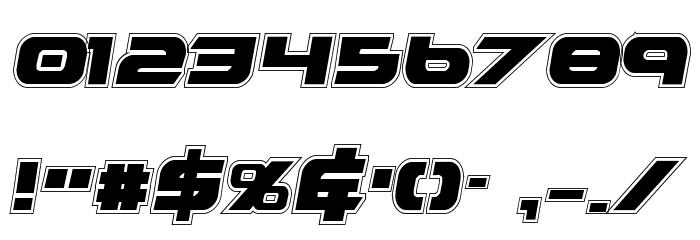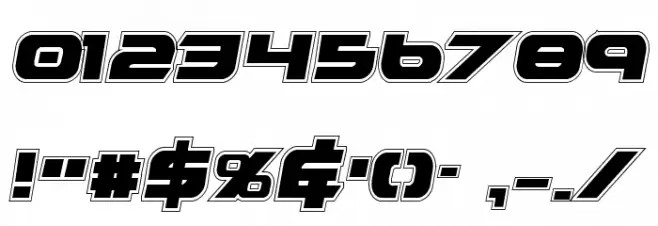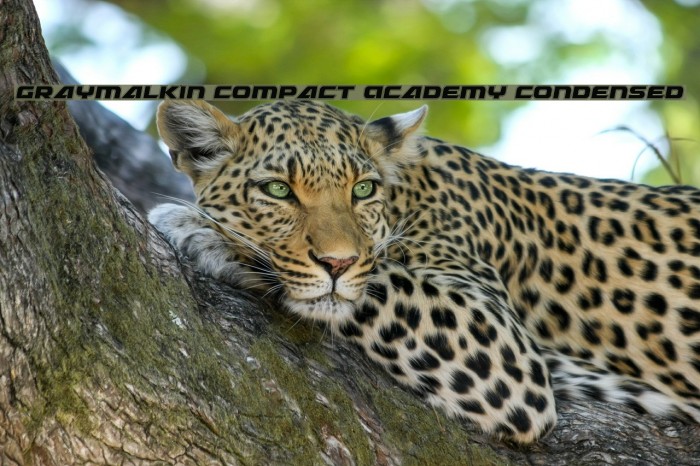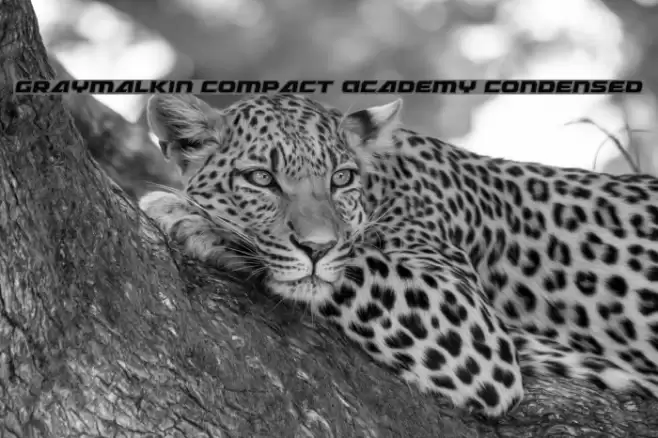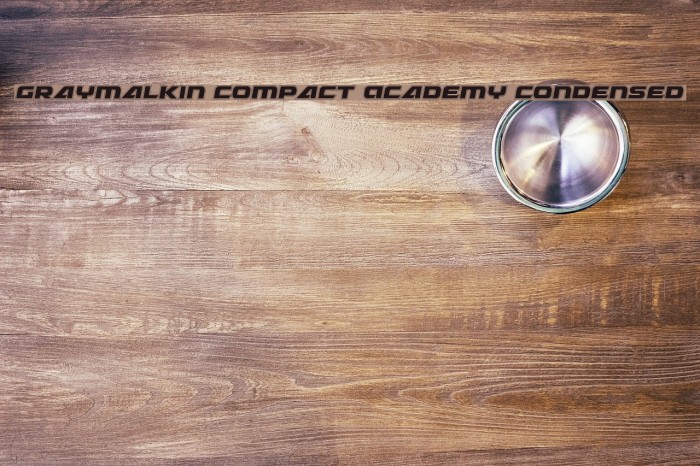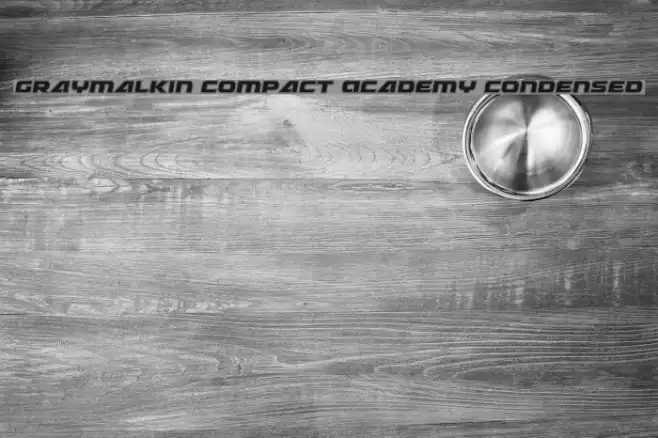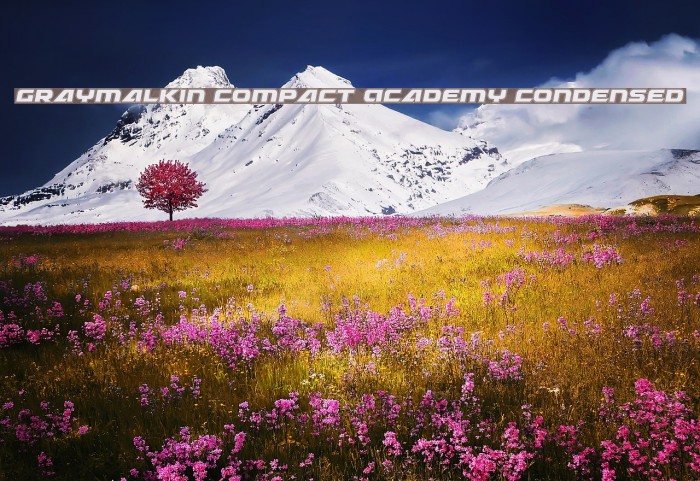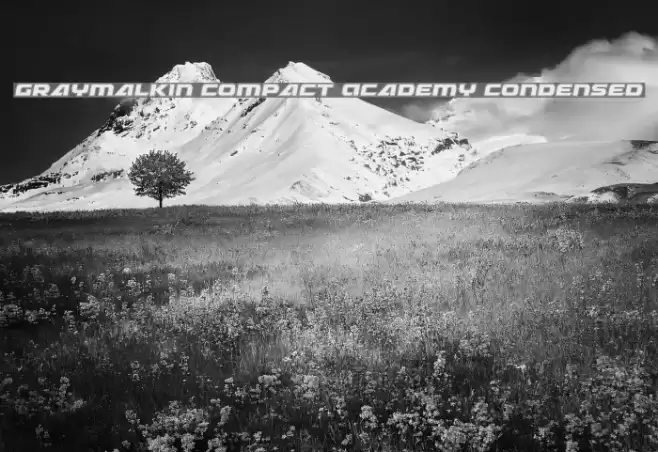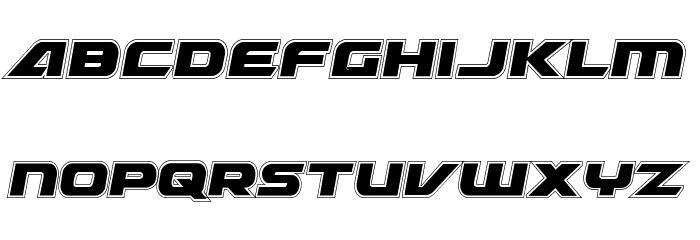
Graymalkin Compact Academy Condensed Font
Graymalkin Compact Academy Condensed Description
This font features a bold, futuristic design with a strong geometric influence. The characters are outlined, creating a striking visual effect that enhances readability while maintaining a unique style. The uppercase and lowercase letters share a consistent design language, with angular cuts and a slightly condensed form that gives the font a compact appearance. The numbers and special characters follow the same aesthetic, ensuring uniformity across all text elements. This font's distinct look makes it ideal for projects that require a modern and dynamic feel.
| Proposed Projects | Ideal for sci-fi themed designs, video game titles, tech branding, and modern posters. |